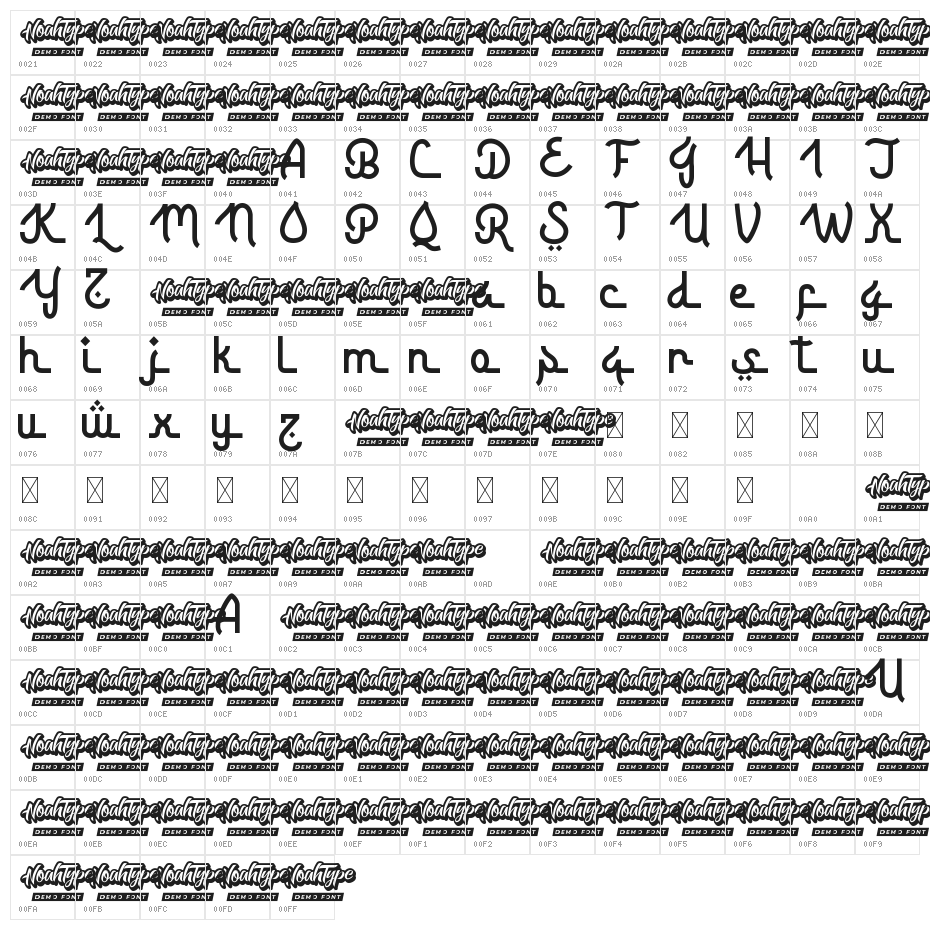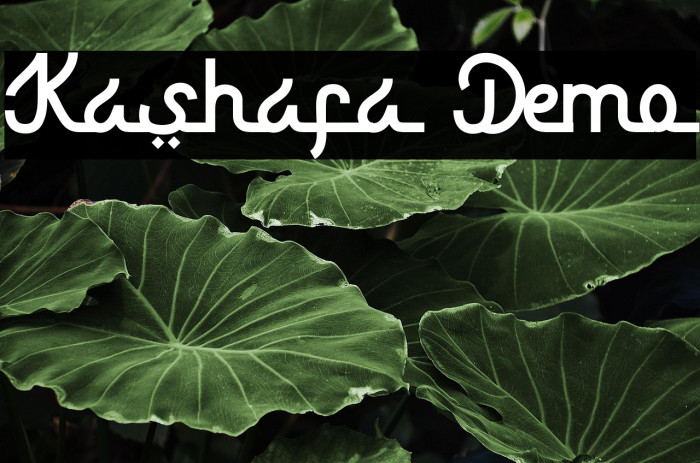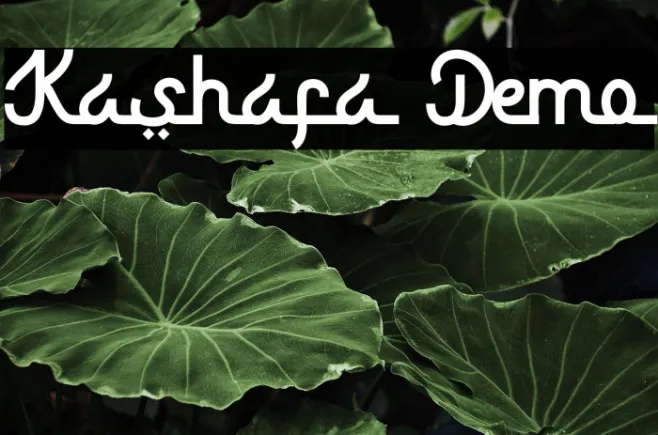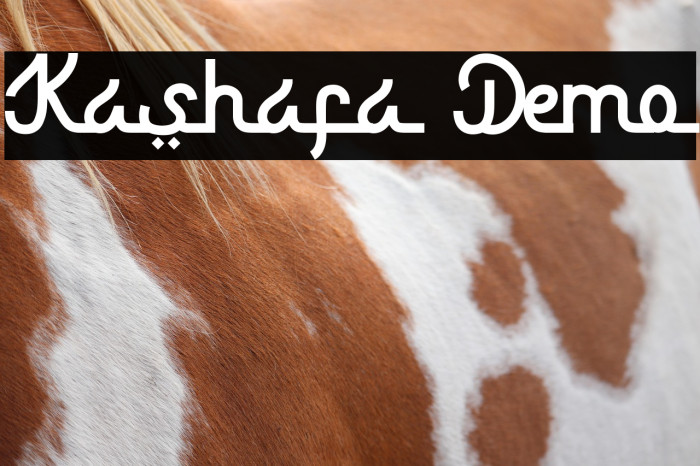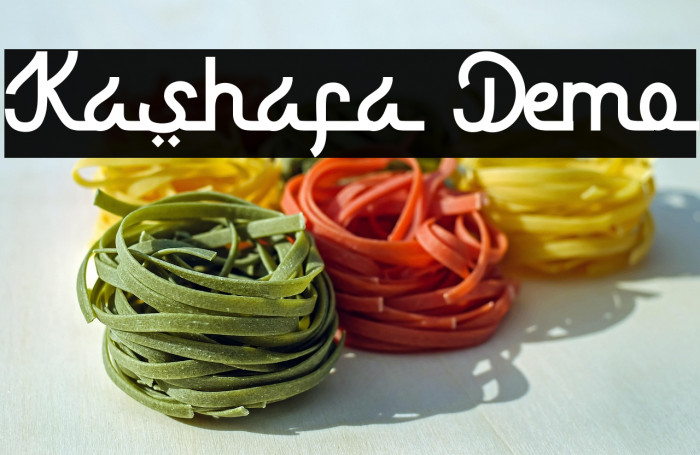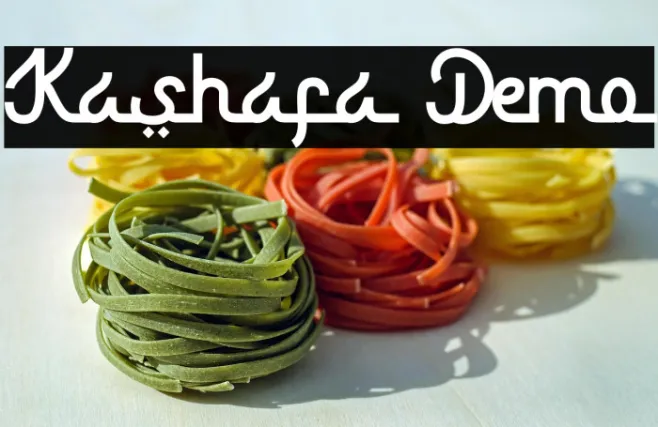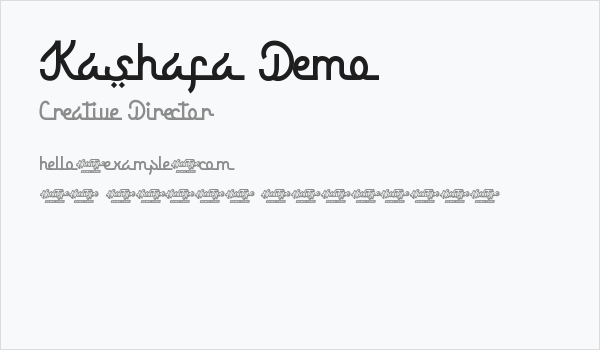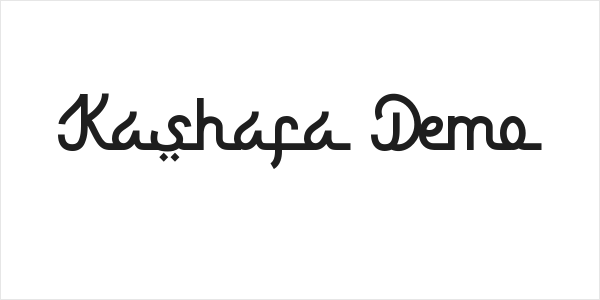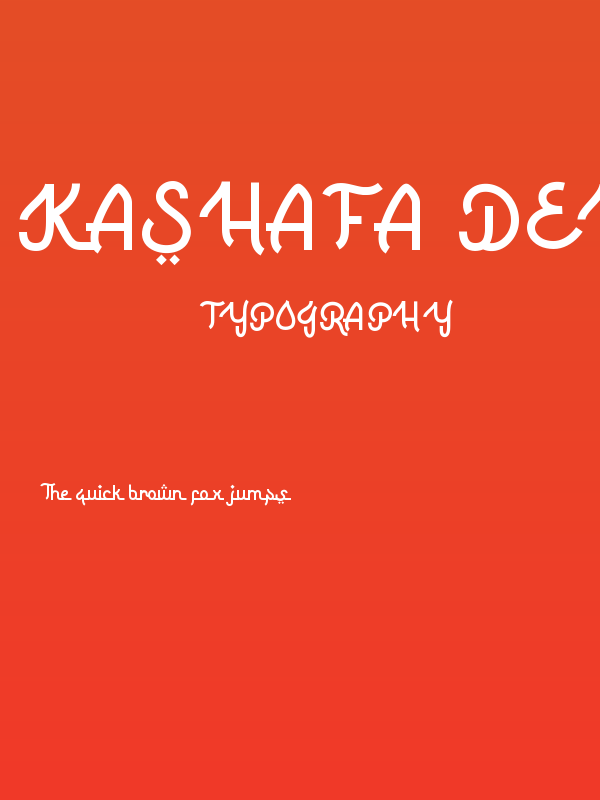
Kashafa Demo Font
Kashafa Demo Description
This font features a unique blend of modern and traditional elements, characterized by its bold, flowing strokes and distinctive curves. The uppercase letters exhibit a strong presence with sharp angles and a consistent baseline, while the lowercase letters maintain a fluidity that adds a touch of elegance. The numerals are designed to complement the overall style, with a consistent weight and balanced proportions. Special characters are thoughtfully integrated, maintaining the font's cohesive aesthetic. The font's design is both eye-catching and versatile, making it suitable for a variety of creative applications.
| Use Case | Logos, Headlines, Branding |
| Proposed Projects | Ideal for branding, logo design, headlines, and creative projects that require a bold and modern aesthetic. |